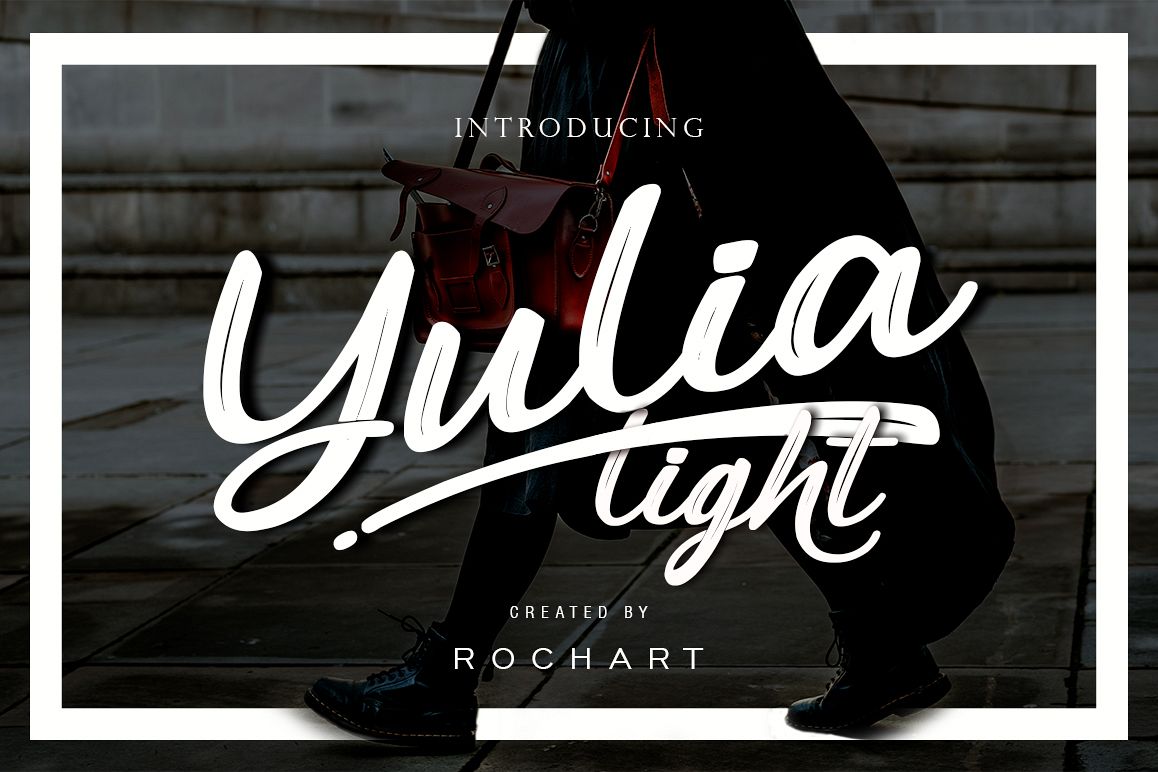
Yulia Light
We introduce our new product called Yulia Light script.
The Yulia Light script is a modern Calligraphy Script font. We give you a
alternate to make your design look more awesome.Yulia Light Script has a
multilingual Support.
Yulia Light Script is great for logotype, Branding Design, Logo Design,
Digital Lettering Arts, T-Shirt/Apparel, Poster, Magazine, Signs, Advertising
Design, wedding invitation and any hand lettered needs.
Yulia Light Script Features:
• Upper and
Lowercase Standard Characters, Punctuation, Numerals
• Includes a
range of multilingual characters.